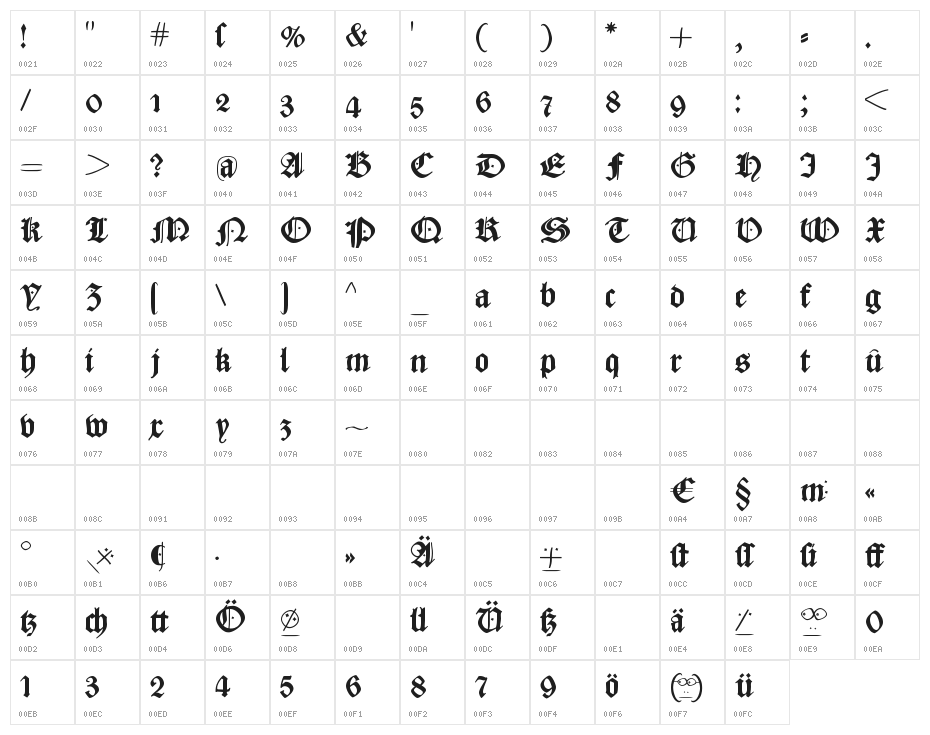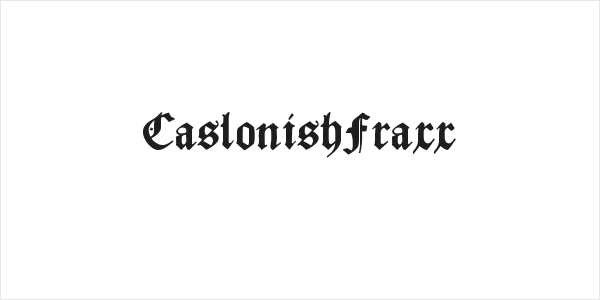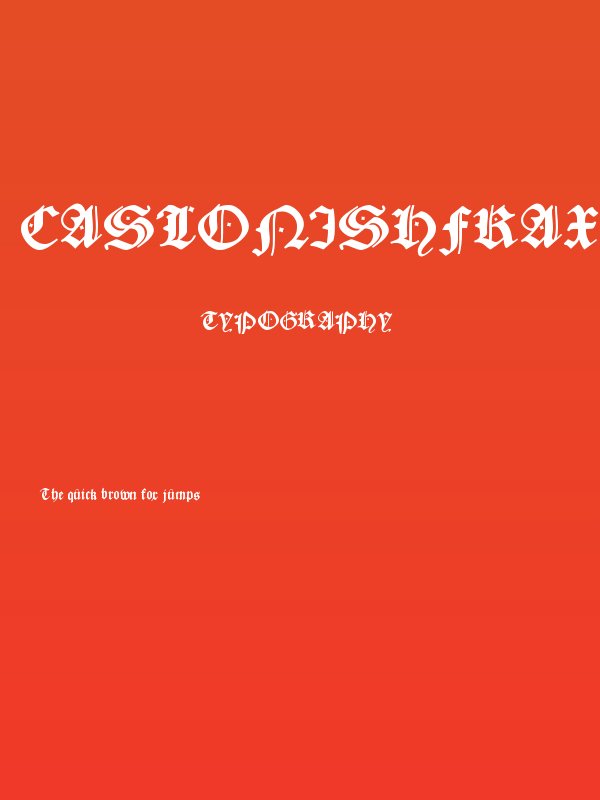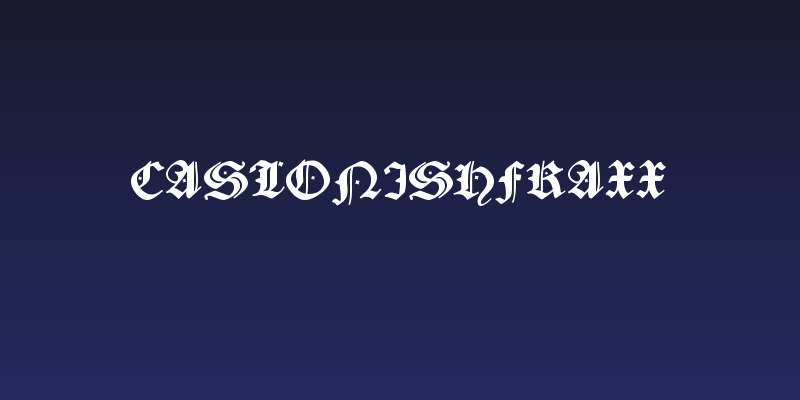
CaslonishFraxx Font
CaslonishFraxx Description
This font exhibits a classic Blackletter style, characterized by its intricate and ornate letterforms. The uppercase letters are bold and angular, with sharp serifs and a distinct medieval aesthetic. The lowercase letters maintain a similar style, with a slightly more rounded appearance, yet still retaining the sharp edges typical of Blackletter fonts. The numerals are consistent with the overall theme, featuring a bold and dramatic look. Special characters are designed to match the elaborate style, making this font suitable for projects that require a historical or gothic touch. The overall impression is one of elegance and tradition, making it ideal for decorative purposes.
| Use Case | Logos, Decorative headings, Book covers |
| Proposed Projects | Ideal for historical documents, gothic-themed designs, book covers, and decorative headings. |